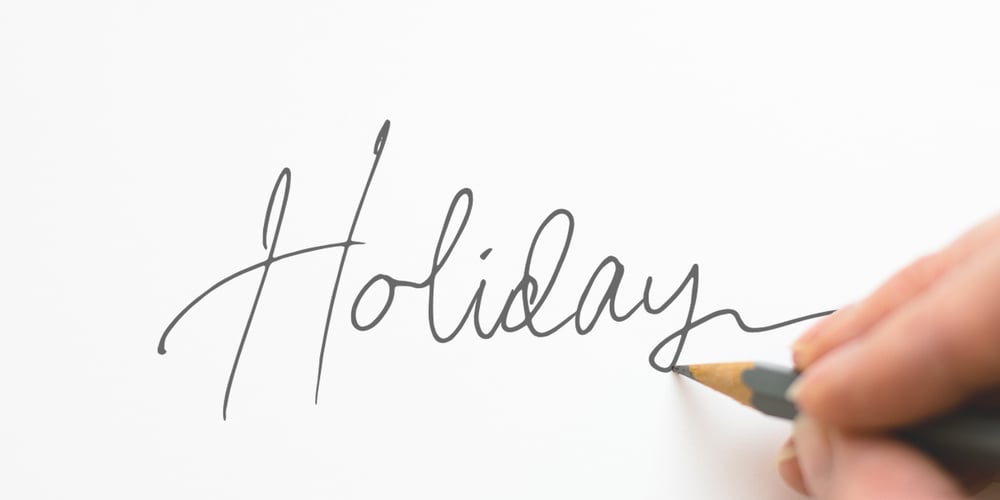
Hostens signature Font Family was designed by Ferdiansyah and published by Pointlab. Hostens signature contains 1 styles and family package options. Hostens Signature a new fresh & modern script with a handmade calligraphy style, decorative characters and a dancing baseline. So beautiful on invitation like greeting cards, branding materials, business cards, quotes, posters, and more. Hostens Signature come with 545 glyphs. The alternative characters were divided into several Open Type features such as Swash, Stylistic Sets, Stylistic Alternates, and Ligature. The Open Type features can be accessed by using Open Type savvy programs such as Adobe Illustrator, Adobe InDesign, Adobe Photoshop Corel Draw X version, And Microsoft Word. And this font has given PUA unicode (specially coded fonts). so that all the alternate characters can easily be accessed in full by a craftsman or designer.